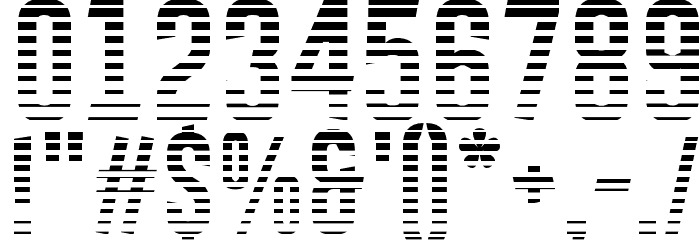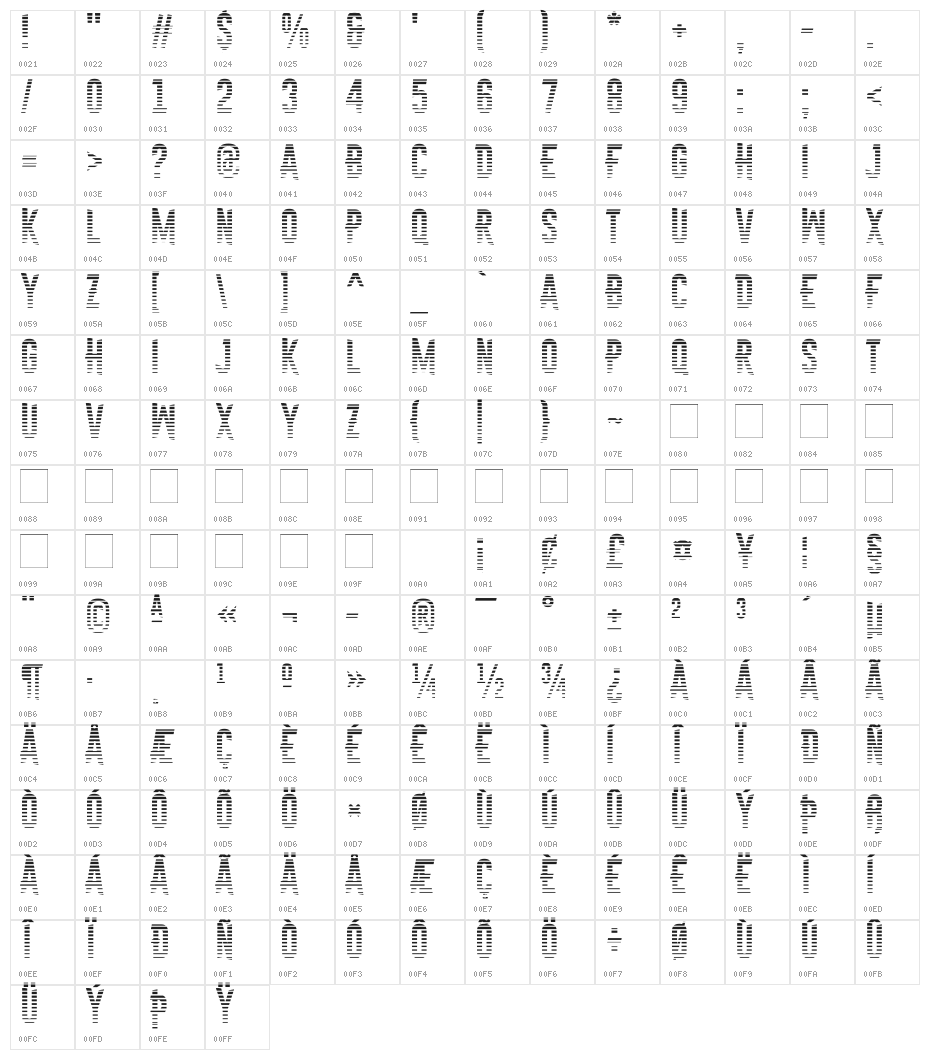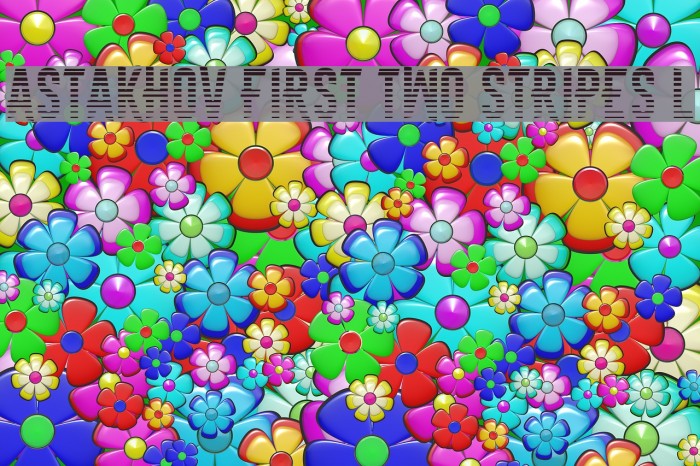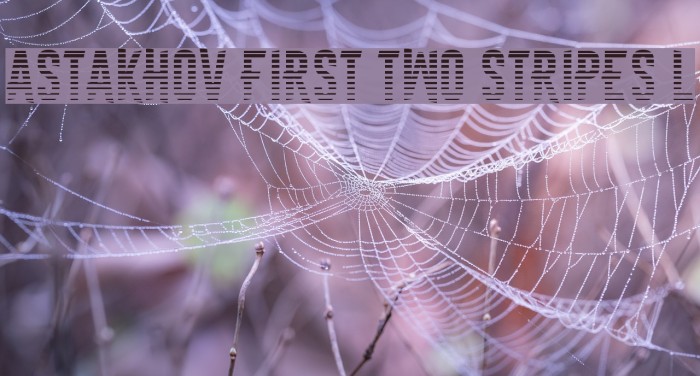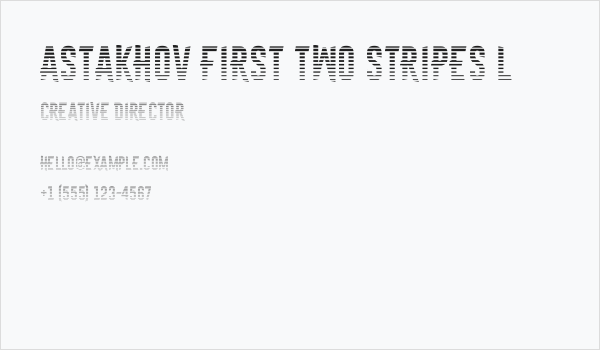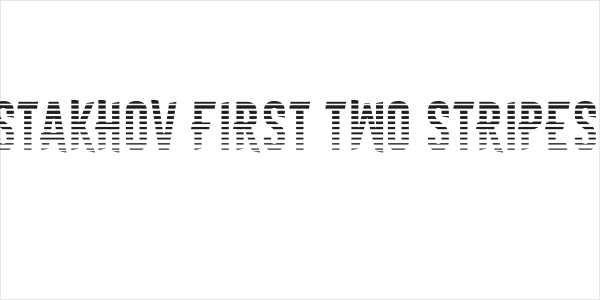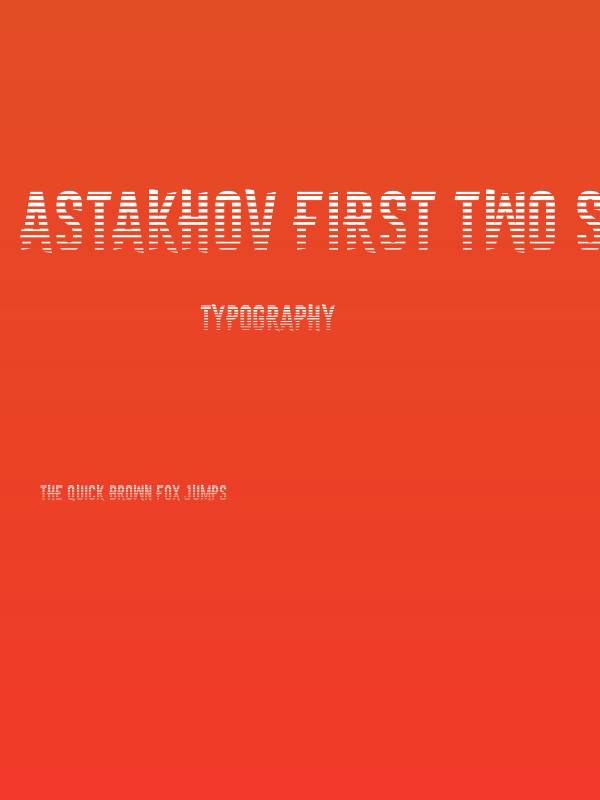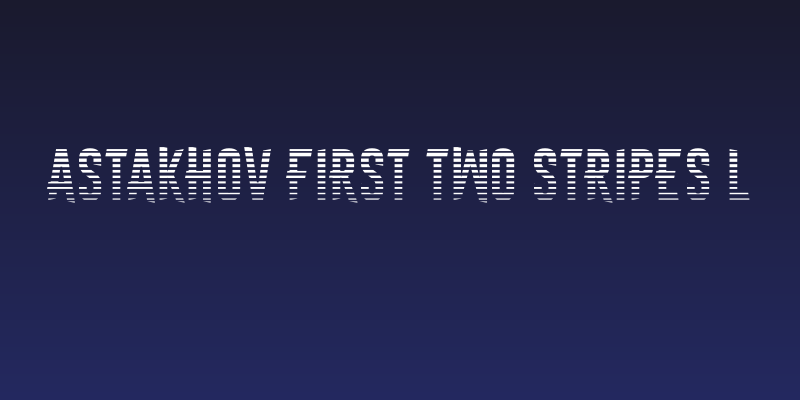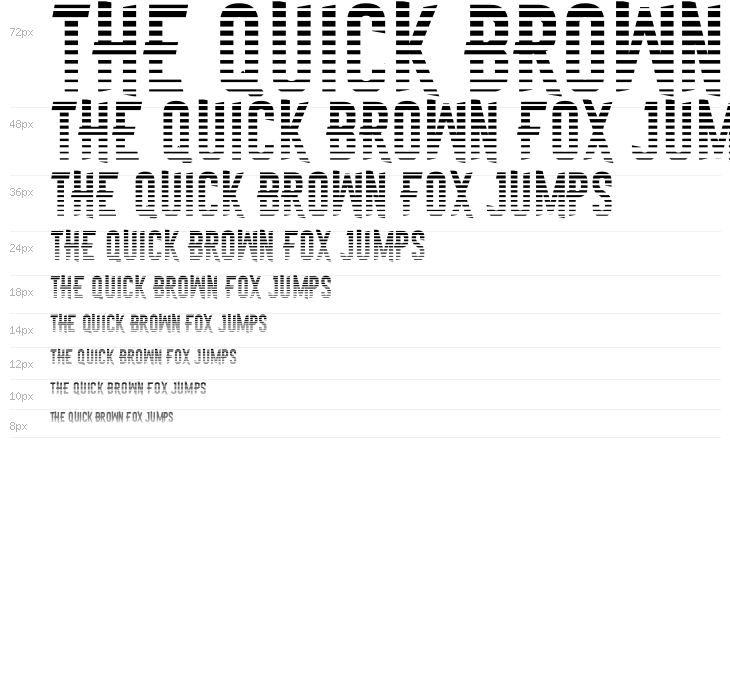
Astakhov First Two Stripes L Font
Astakhov First Two Stripes L Description
This font features a unique striped pattern, where each character is composed of horizontal lines that create a visually striking effect. The uppercase and lowercase letters, as well as numbers and special characters, maintain a consistent design with evenly spaced stripes. This design gives the font a modern and edgy appearance, making it stand out in any context. The boldness of the characters is enhanced by the contrast between the solid black lines and the white spaces, creating a dynamic visual rhythm. The font's geometric structure and uniformity make it suitable for projects that require a contemporary and innovative look.
Proposed ProjectsIdeal for branding, posters, headlines, and any project seeking a modern and distinctive look.